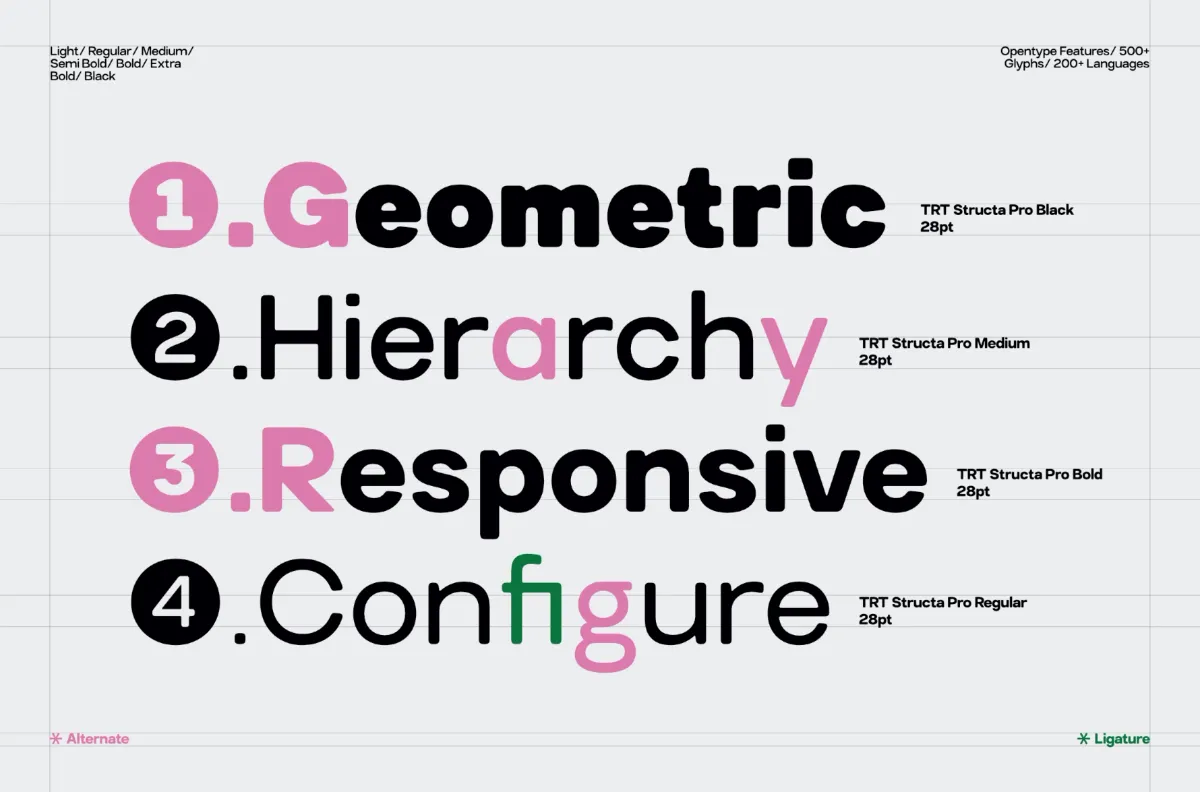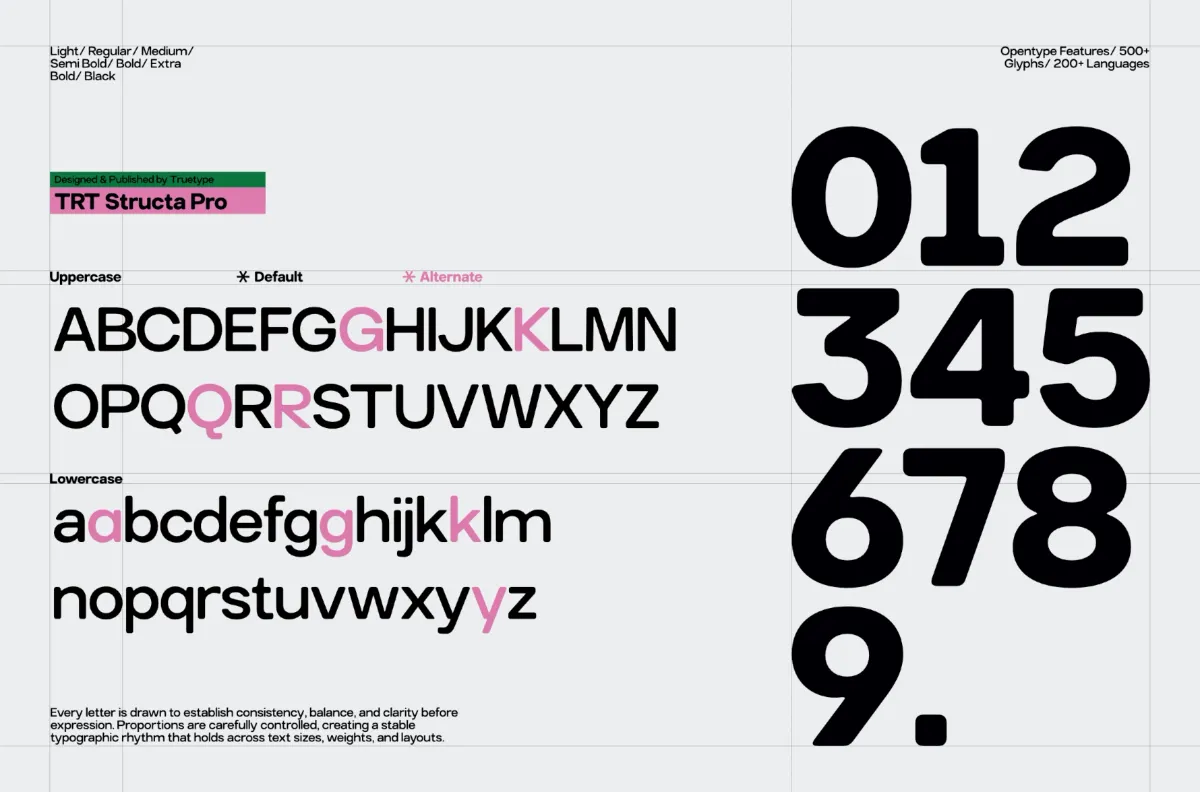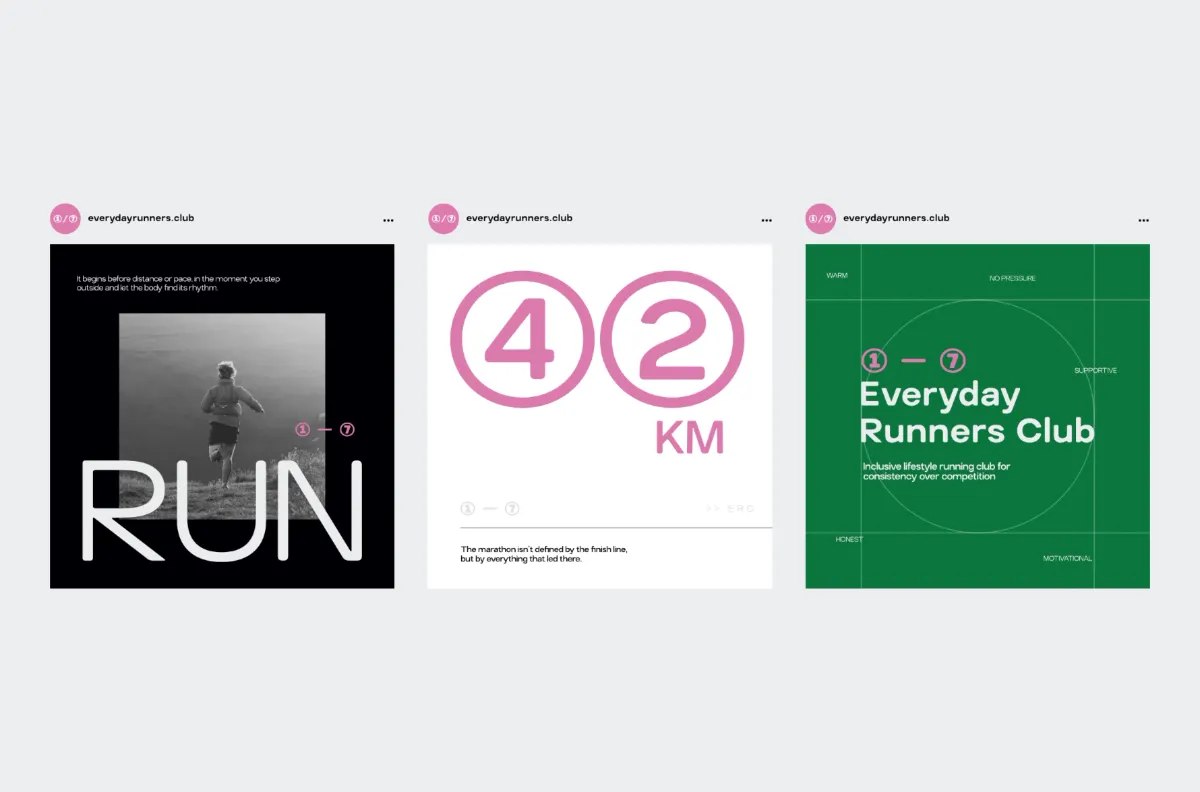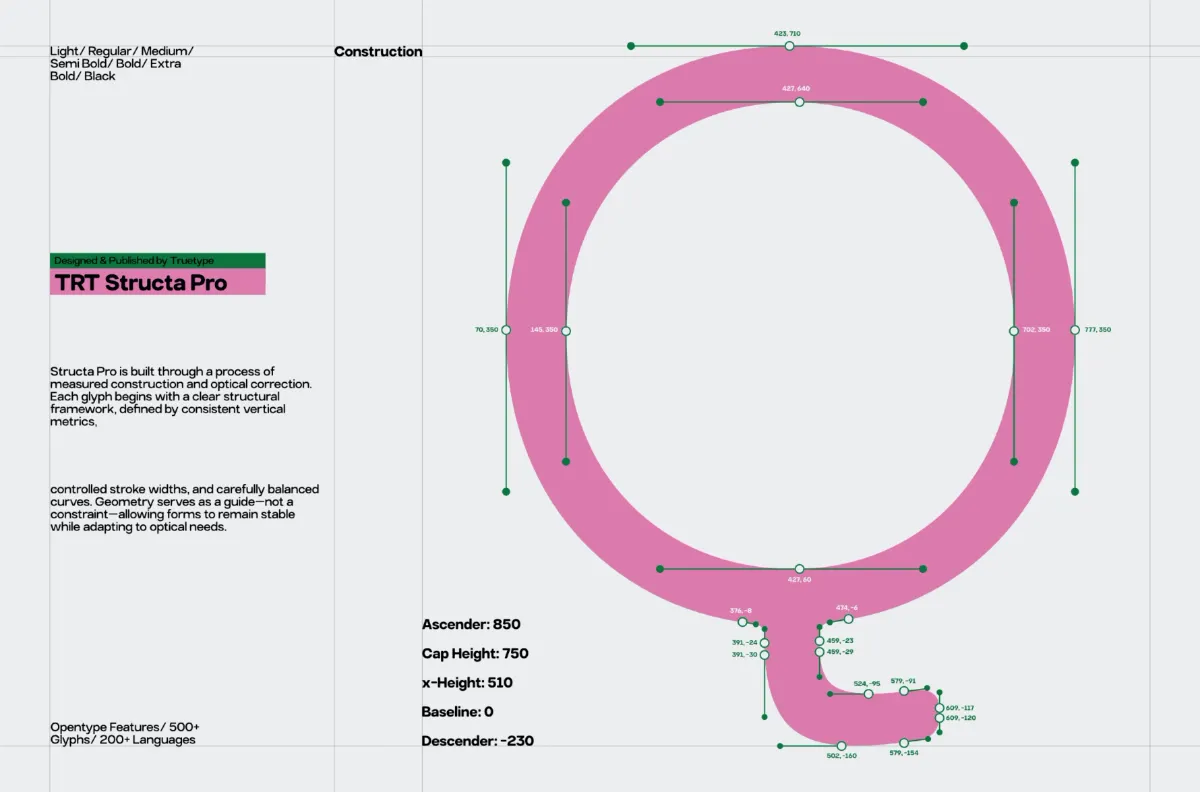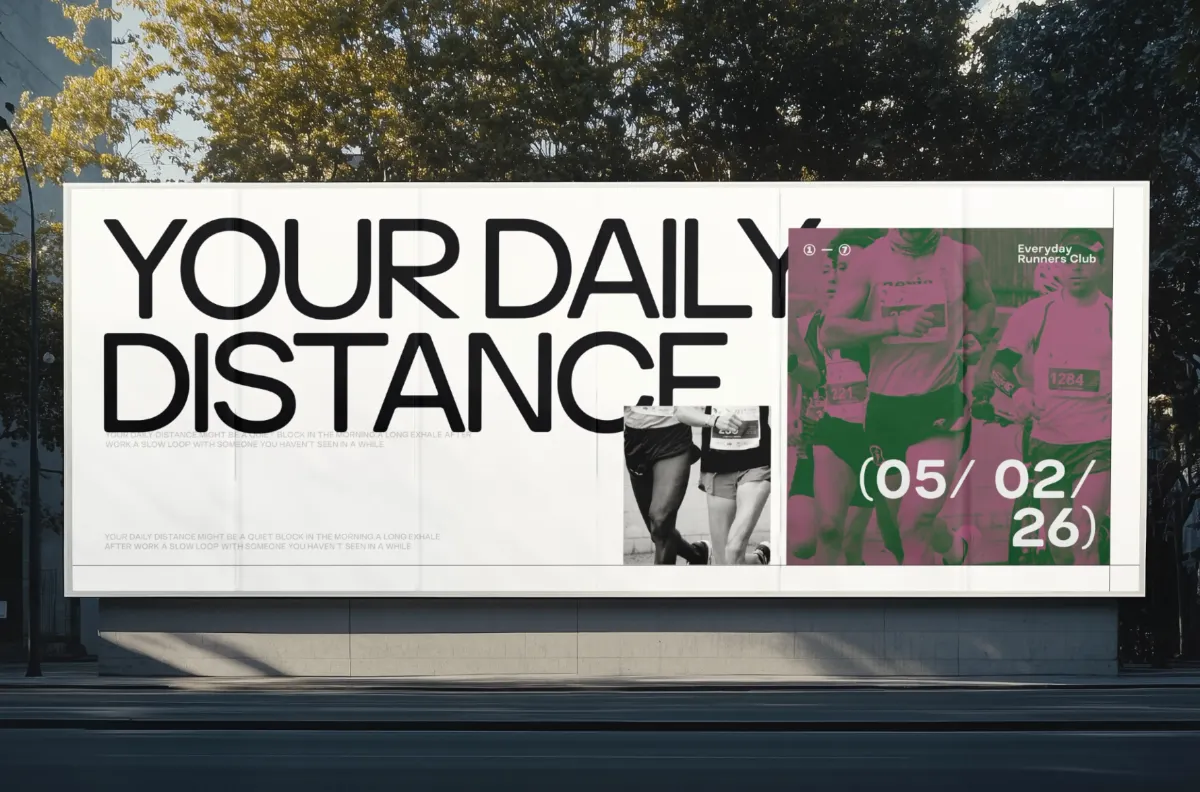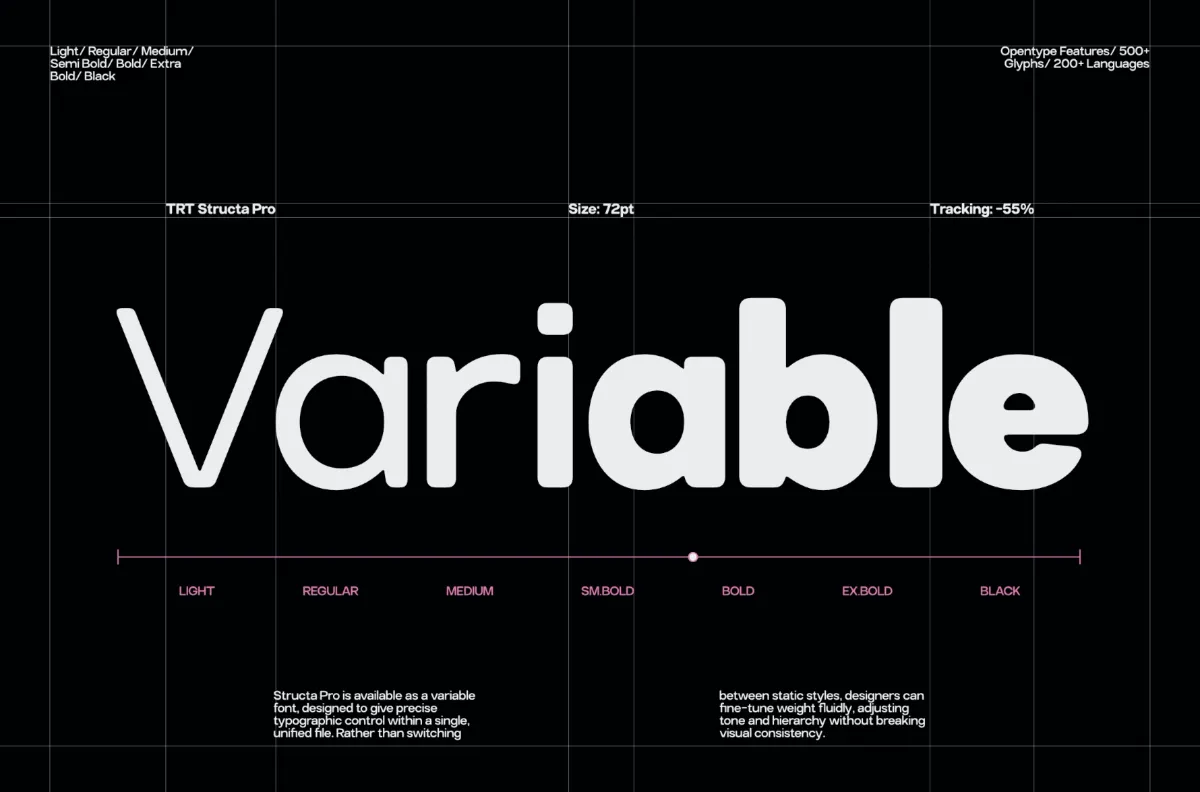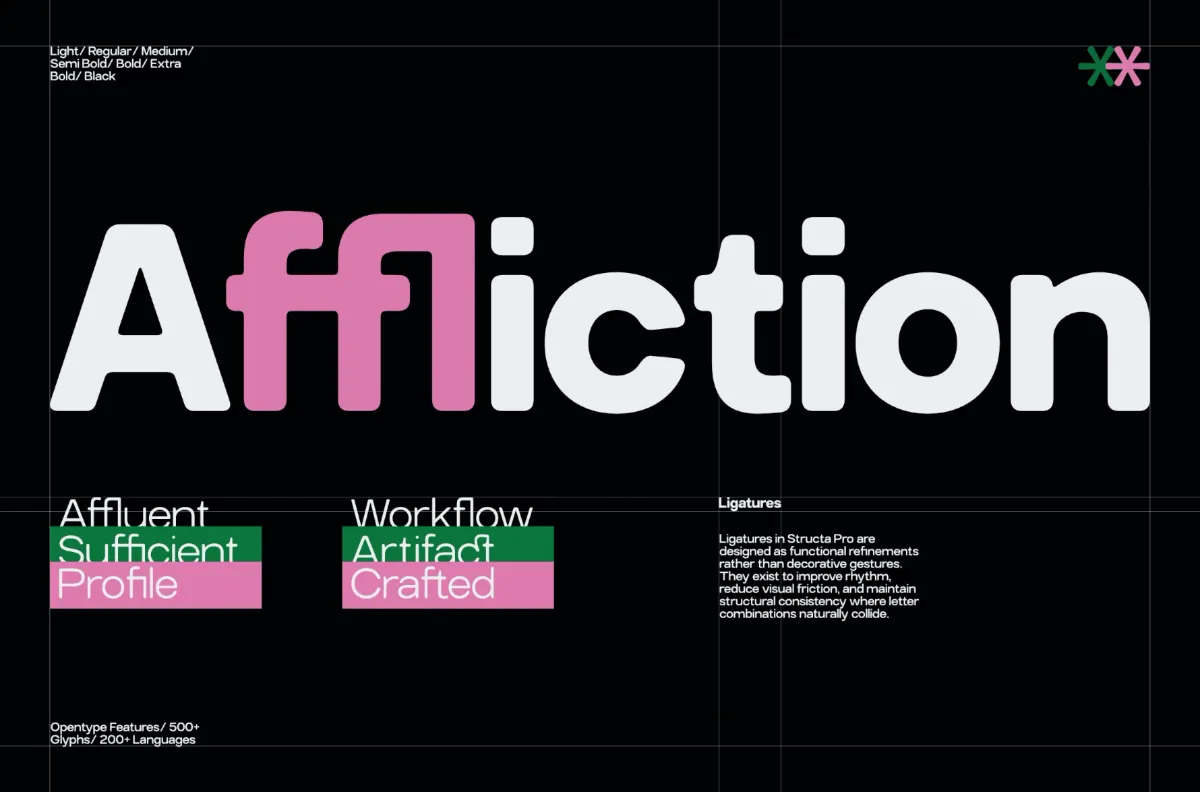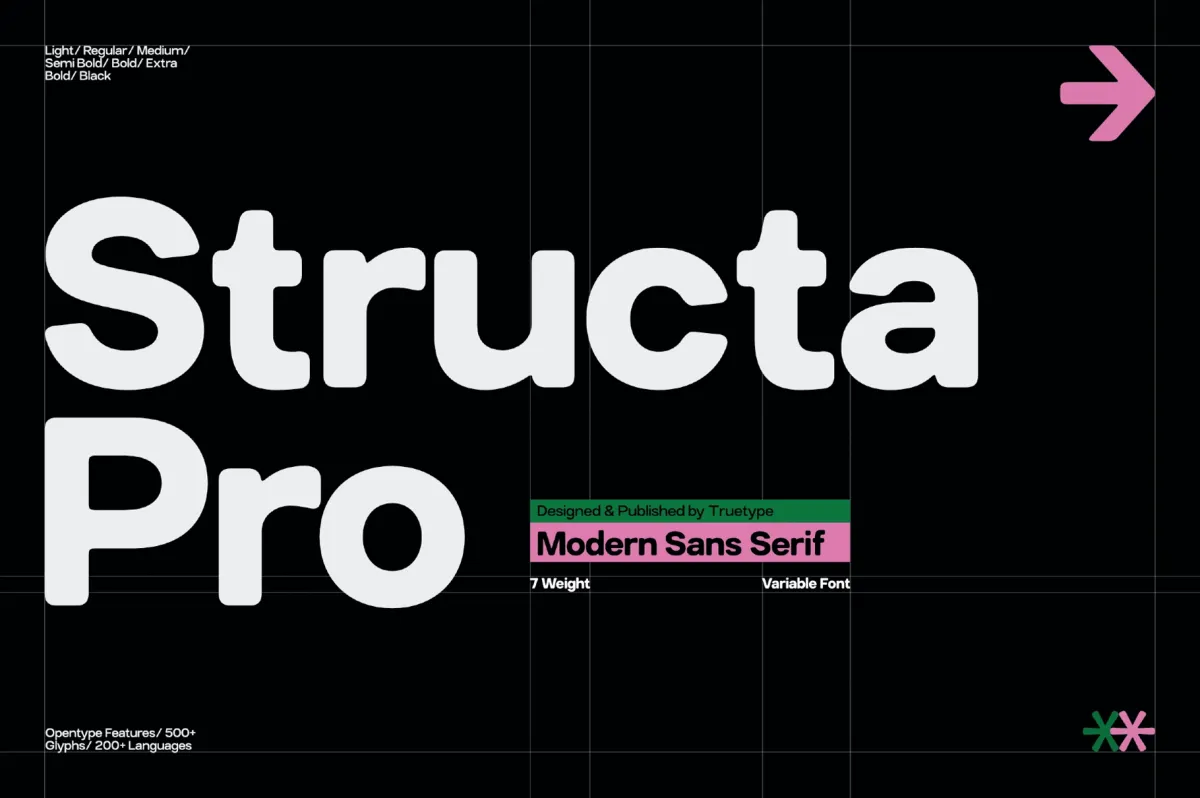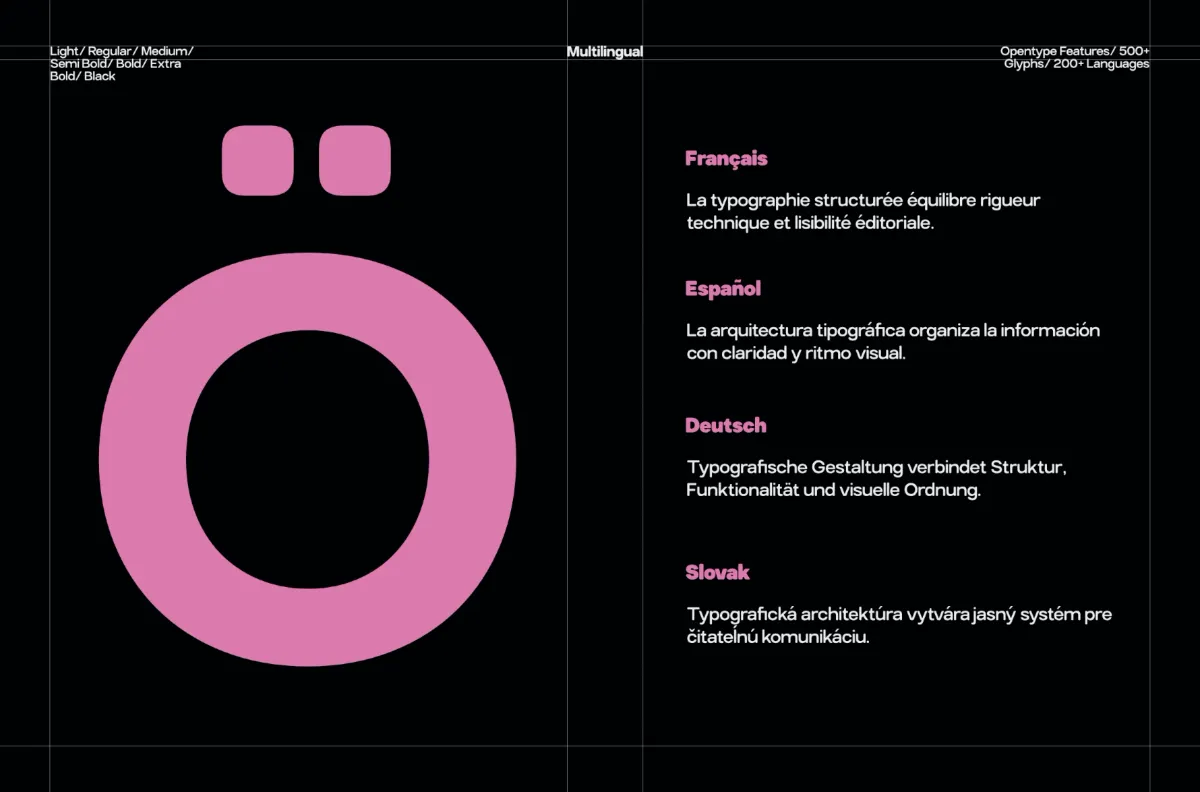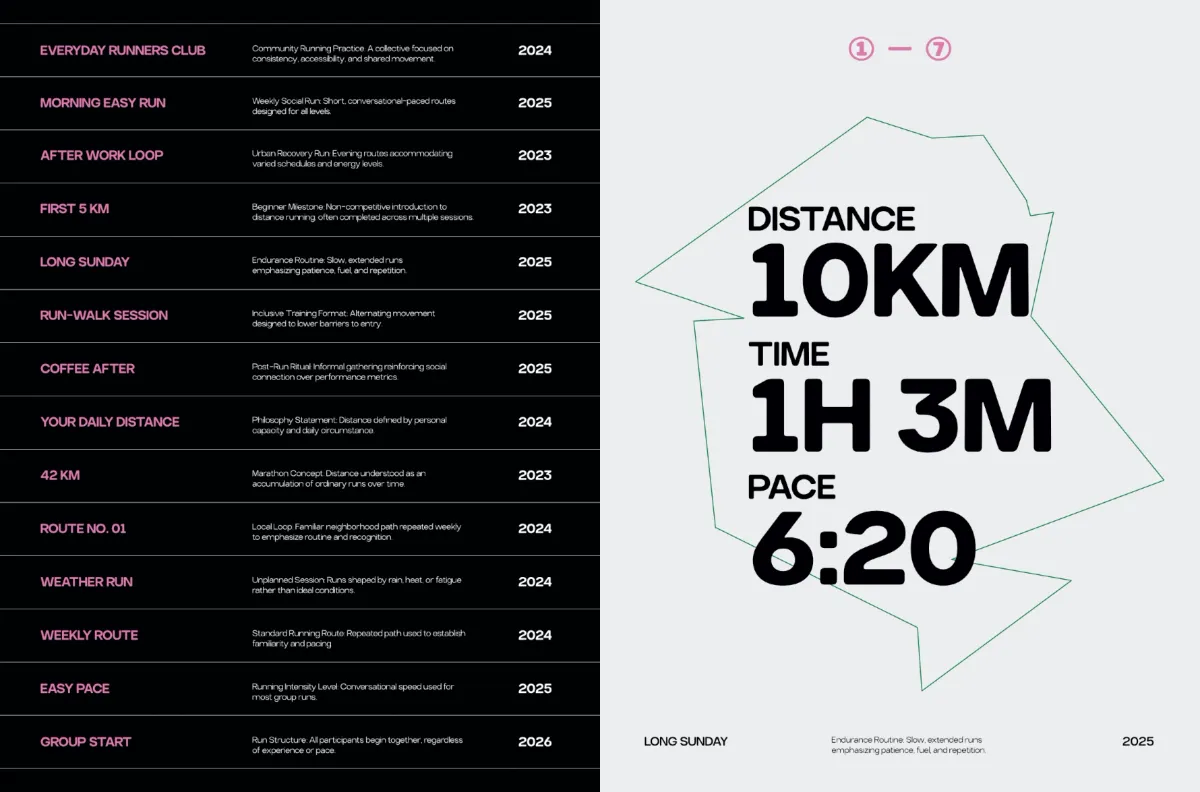
TRT Structa Pro Rounded Modern Sans
Structa is a rounded sans serif font that keeps a semi-grotesque skeleton under soft curves and rounded terminals, balancing geometric precision with a friendly touch. Seven weights run from Light to Black, plus a variable font file for on-the-fly weight adjustments, and the character set carries stylistic alternates alongside fi, ffl, ffi, and ft ligatures for cleaner letter pairs.
Structa works best when hierarchy needs to move fast without turning harsh: wide apertures and a steady x-height keep text legible from headline to caption sizes, and consistent metrics hold the look together across all seven weights and the variable axis in between. Use it for branding systems, app interfaces, product pages, dashboards, magazine headlines, pull quotes, event posters, launch announcements, packaging marks, marketing sites, editorial layouts, and logo design.
- 7 styles: Light, Regular, Medium, SemiBold, Bold, ExtraBold, Black;
- variable font file included;
- uppercase & lowercase;
- numerals, punctuation & symbols;
- stylistic alternates;
- ligatures;
- multilingual support;
- 500+ glyphs